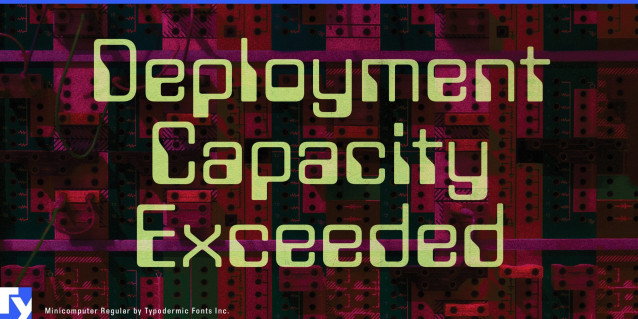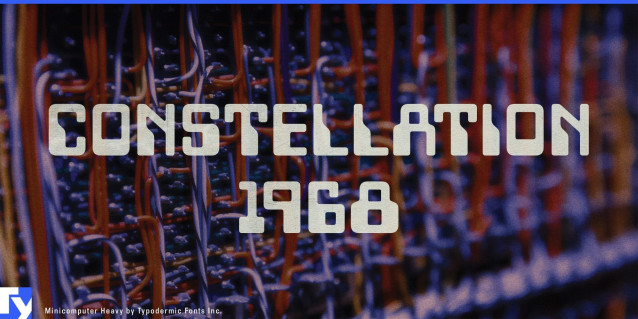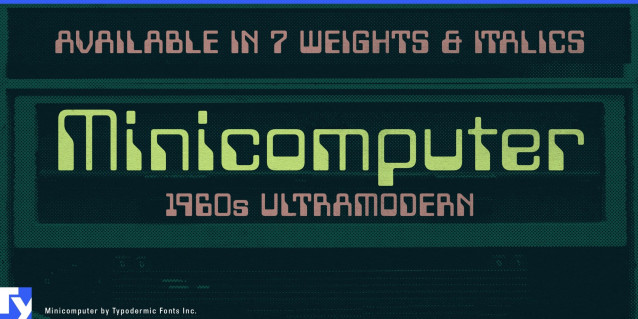
Minicomputer Font
Minicomputer Font is where 1960s retro-futurism swaps its lab coat for a mod minidress. Inspired by MICR E-13B magnetic ink characters—the kind once printed at the bottom of bank checks—it blends mid-century tech precision with the bold spirit of Swinging London. This is a display typeface that remembers its roots in early computing, yet struts confidently into the world of fashion, music, and cultural cool.
Available in seven weights plus italics, Minicomputer moves from feather-light Thin to the commanding heft of Black without losing its distinctive geometric rhythm. Its crisp, squared forms and unique number shapes give a nod to vintage bank machine readouts, while the full alphabet treatment brings new versatility to a style once limited to numerals and codes.
Features include old-style numerals, fractions, ordinals, and a complete set of mathematical symbols—ready for everything from editorial infographics to sci-fi poster art. Language support spans Latin, Greek, Cyrillic, and Vietnamese, making it a global player whether you’re designing a Helsinki fashion catalogue, a Tokyo pop-culture zine, or a retro-tech brand identity.
Visually, Minicomputer thrives in the overlap between circuitry and catwalk. Its crisp angles and distinctive counters evoke control panels and punched-card machines, yet its proportions and flow make it feel at home on boutique signage or record sleeves. Use it to channel late ’60s optimism, weave in a dash of mod attitude, or give your project that elusive mix of technical edge and stylish charm.
Minicomputer is a reclamation of a genre, reminding us that even the most functional letterforms can have a flair for the dramatic.